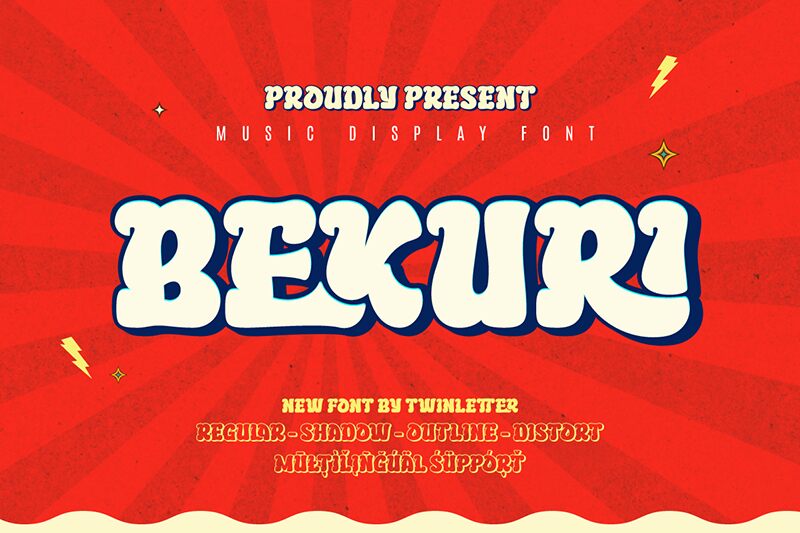
Bekuri font by Twinletter is a groovy display font with a stylish and bold design. Its characters have a wavy, organic, and slightly quirky appearance that brings vibrant personality forth. Bekuri possesses a unique charm that makes it stand out from other fonts.
Because of its inimitable style, this free display can be used for branding, advertising, packaging design (boxes/bags), logos & logotypes, hoarding design, book covers (art), movie posters especially those for genres like romance or comedy.